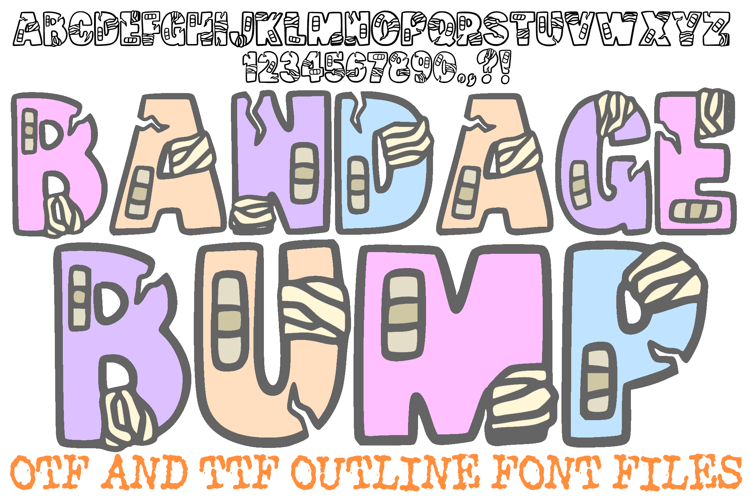
Bandage Bump Hospital Font Cartoon Typography Lettering ABC
Give your creative projects a tough but playful edge with the Bandage Bump Font! This hand-drawn display alphabet features bold, blocky characters that appear "injured," complete with realistic bandage wraps and textured cracks throughout each letter and number. It is the perfect choice for "get well soon" cards, medical-themed branding, quirky Halloween stickers, and high-energy social media graphics.
Each character is designed to look battered yet resilient, blending a sturdy "puffy" silhouette with detailed medical dressings. Whether you are designing for a health-focused campaign, a fun first-aid kit label, or a "zombie-medic" themed poster, the Bandage Bump Font adds a unique, storytelling element to your typography.
Why Your Designs Will Heal in Style:
Detailed Bandage Textures: Every character features hand-drawn adhesive bandages and wraps that give the font a 3D, tactile feel.
"Cracked" Silhouette Effect: Jagged lines and internal cracks add to the "battered" aesthetic, making the letters look like they’ve seen some action.
High-Impact Legibility: Despite the heavy distressing, the bold outlines ensure your message remains clear and easy to read.